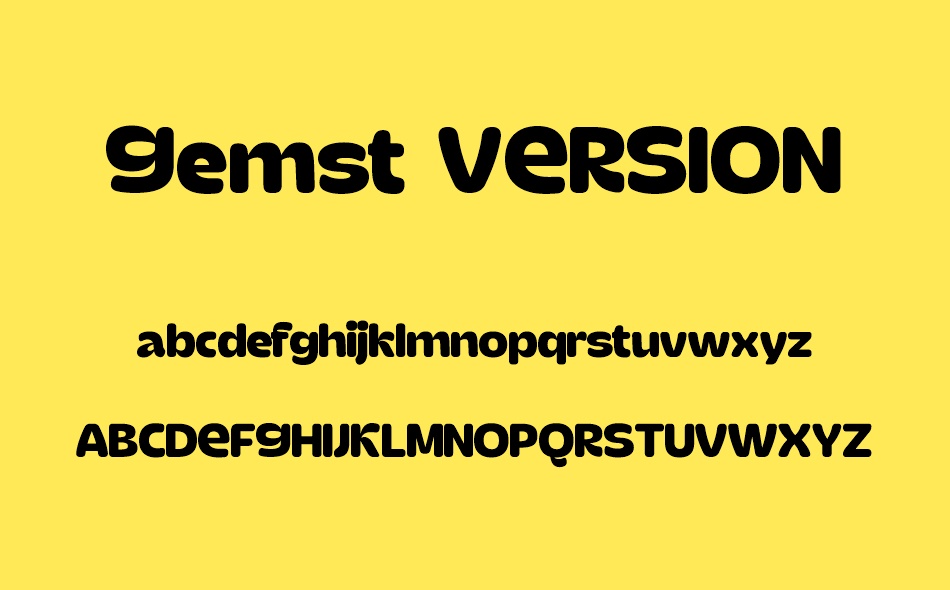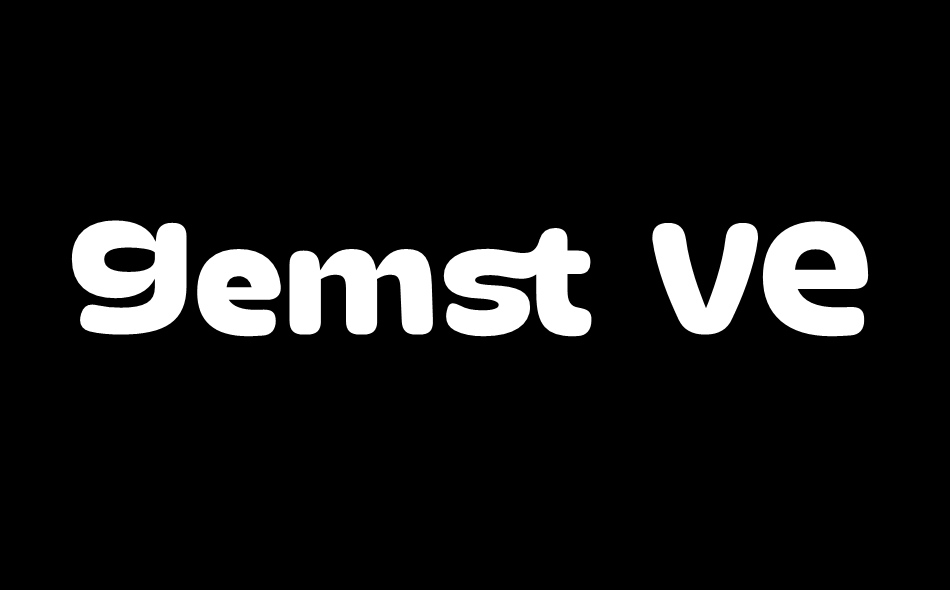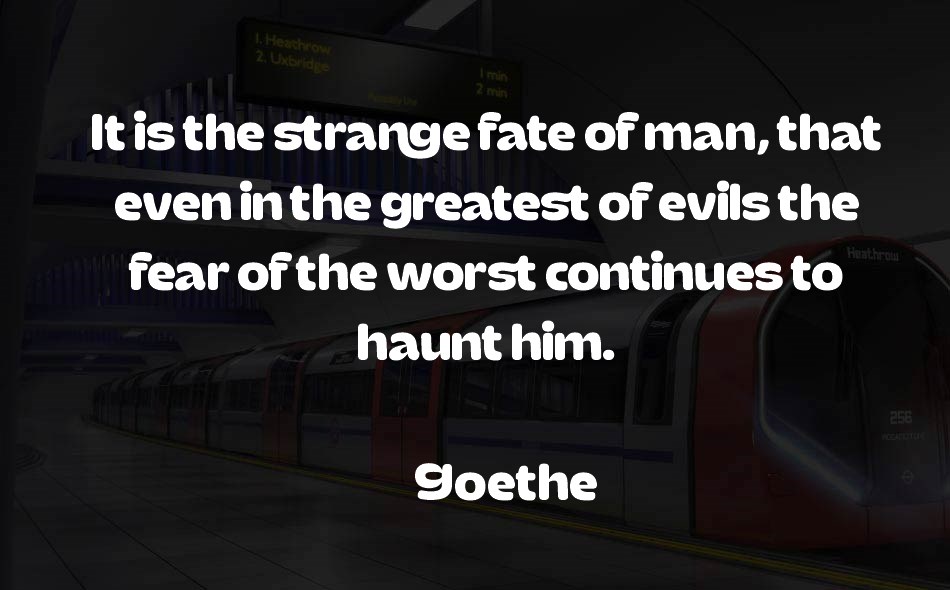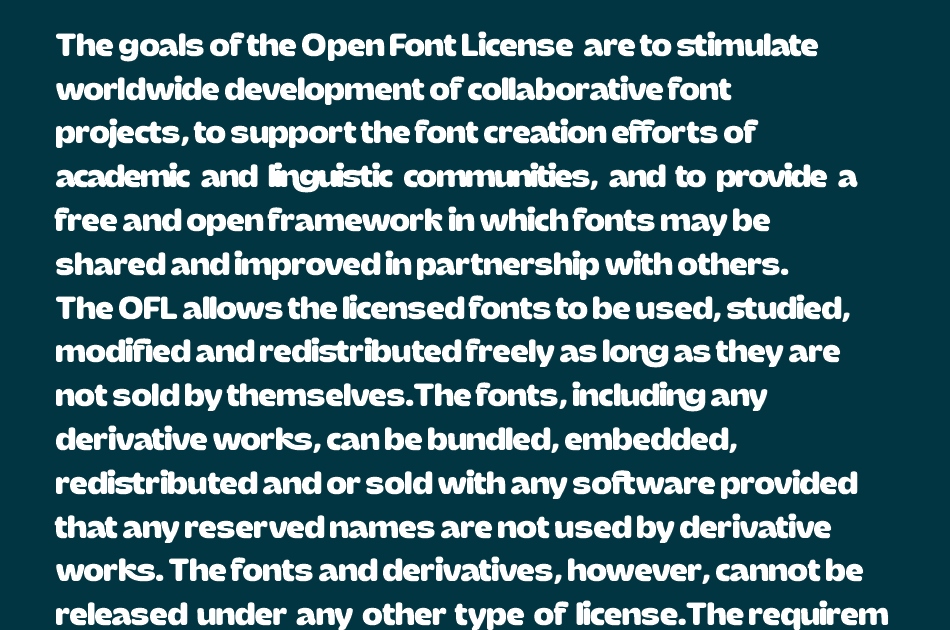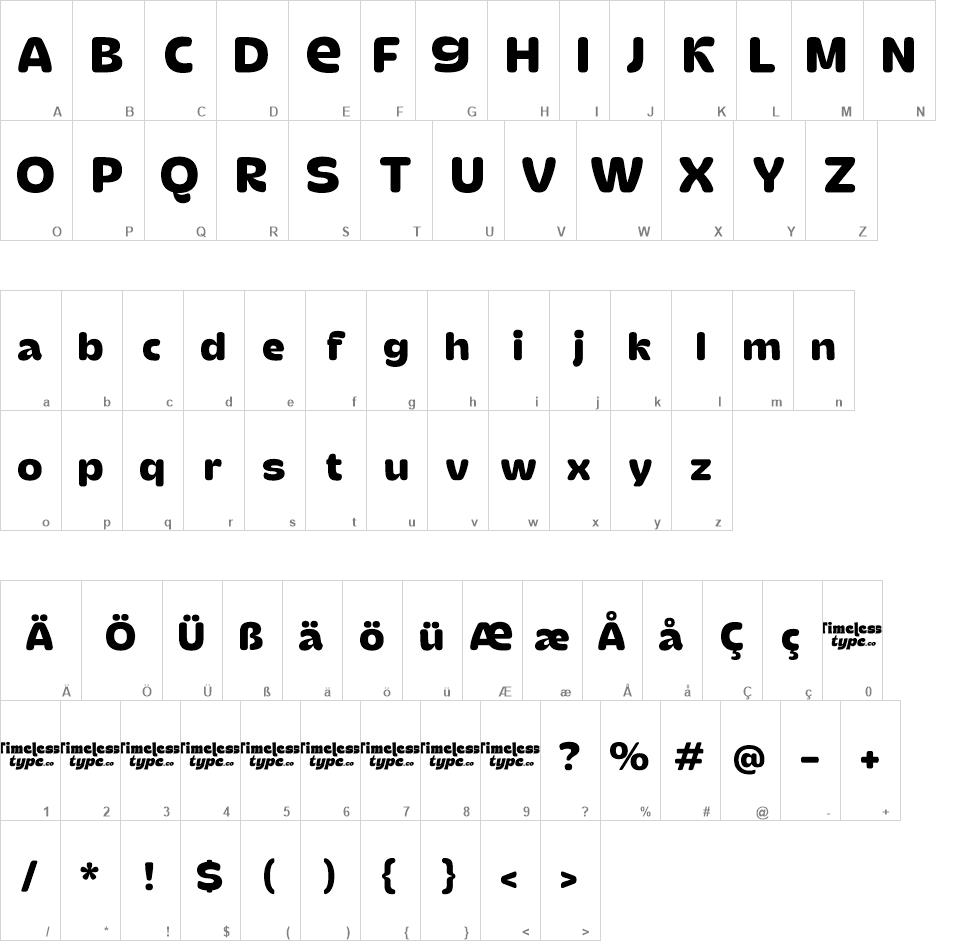
Gemst font
Gemst - Bold Sans Display Font
Injecting instant personality and visual warmth into any project, Font Gemst - Bold Sans Display Font Sans Serif is the quintessential display typeface built for impact. Its aggressively rounded terminals and substantial weight create a friendly yet authoritative presence, capturing a nostalgic, mid-century modern aesthetic fused with contemporary clarity. This bold sans serif demands attention, ensuring your message is not only seen but truly felt, making it an essential tool for designers seeking maximum readability at display sizes.
Unlock boundless creative potential with extensive OpenType features designed for seamless integration. Font Gemst - Bold Sans Display Font Sans Serif includes a rich collection of over 27 standard ligatures and 31 stylistic alternates. These unique character variations allow for customized typography, transforming standard text into expressive, hand-crafted headlines and logos. The interplay between its robust structure and its fluid alternates provides unmatched depth for sophisticated display typography.
Reach a wider global audience without sacrificing visual consistency or quality. With its extensive multilingual support, Font Gemst - Bold Sans Display Font Sans Serif adapts seamlessly across global markets, making it incredibly versatile for international projects. This comprehensive language coverage ensures that brand identity remains unified, whether deployed in European, Western, or Central American languages, offering designers a truly reliable and globally ready asset.
Perfect for projects requiring a blend of playful charisma and professional polish, Font Gemst - Bold Sans Display Font Sans Serif is the ideal choice for impactful childrens media branding, vibrant advertising campaigns, retro-inspired product packaging, and high-energy editorial headlines. Elevate your visual communication instantlythis font is specifically engineered for display usage where making a memorable first impression is paramount.